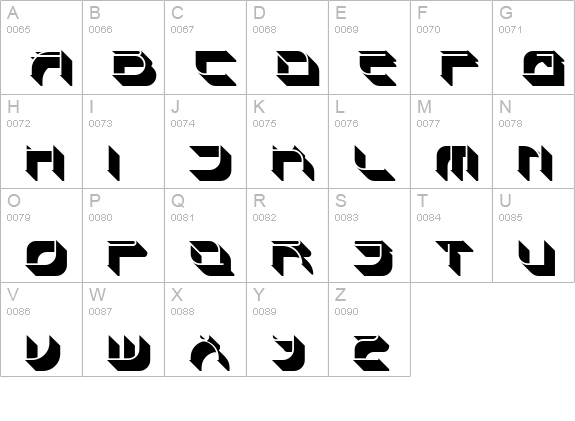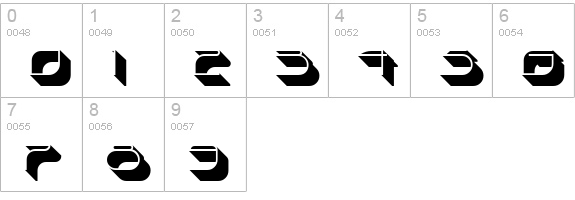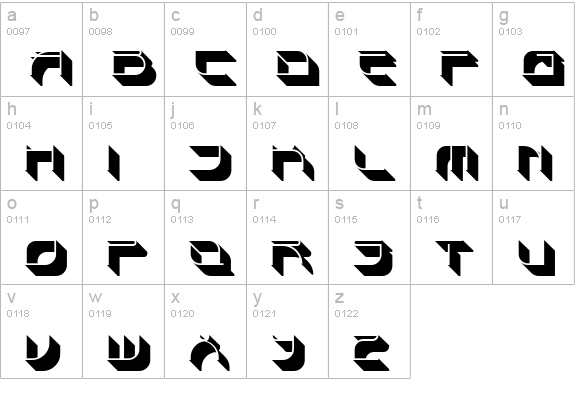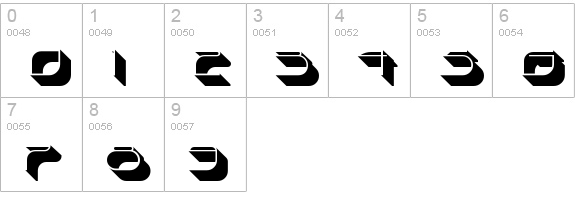
SpondulixNF Font Details
Introducing SpondulixNF, a bold and dynamic font that instantly captures attention and adds a touch of sophistication to any design project. This font is the perfect blend of modernity and elegance, making it ideal for a wide range of applications including logos, headlines, posters, and more. SpondulixNF boasts a unique and eye-catching design that effortlessly combines sleek lines with subtle curves. The carefully crafted letterforms exude confidence and convey a sense of professionalism, making it a top choice for businesses and individuals seeking to make a lasting impression. What sets SpondulixNF apart is not only its striking aesthetic but also its versatility. This font adapts seamlessly to various design styles, whether it be a sleek and minimalist look or a bold and expressive approach. Its bold weight ensures maximum impact, making it perfect for large-scale applications, while its clear legibility ensures readability even at smaller sizes. And the best part? SpondulixNF is available for free download exclusively at FontsMarket.com. Yes, you read that right - this stunning font can be yours without spending a single penny. We believe that creativity should be accessible to all, which is why we have made SpondulixNF freely available for everyone to enjoy. So, whether you're a professional designer looking to elevate your projects or an individual seeking a font that stands out from the crowd, SpondulixNF is the perfect choice. Download it today from FontsMarket.com and unleash your creativity with this remarkable font.